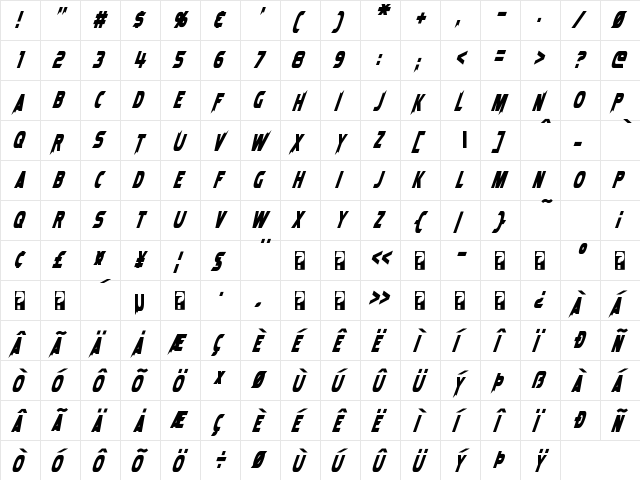
Laser Rod Oblique Oblique
| Designer | Neale Davidson |
Design Context for Laser Rod Oblique Typeface
Laser Rod Oblique is a composed and adaptable typeface that performs quietly and consistently across a wide range of design contexts. The slanted form adds forward momentum and visual energy.
Pro Tip: Try Laser Rod Oblique for annotation and caption copy alongside an upright companion — the contrast in angle creates a dynamic but ordered typographic system.